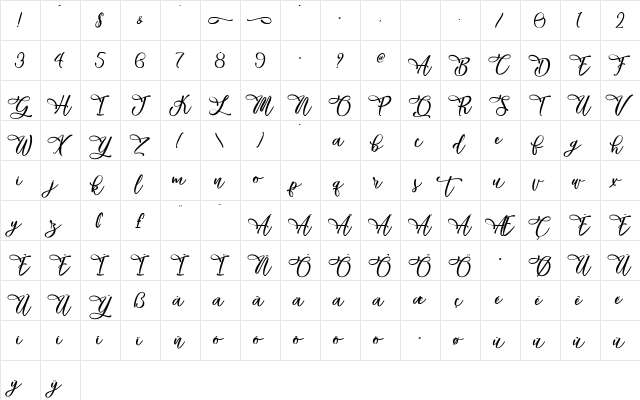
Zebra Advert - Personal Use Regular
Design Context for Zebra Advert - Personal Use Typeface
Zebra Advert - Personal Use is a composed and adaptable typeface that performs quietly and consistently across a wide range of design contexts.